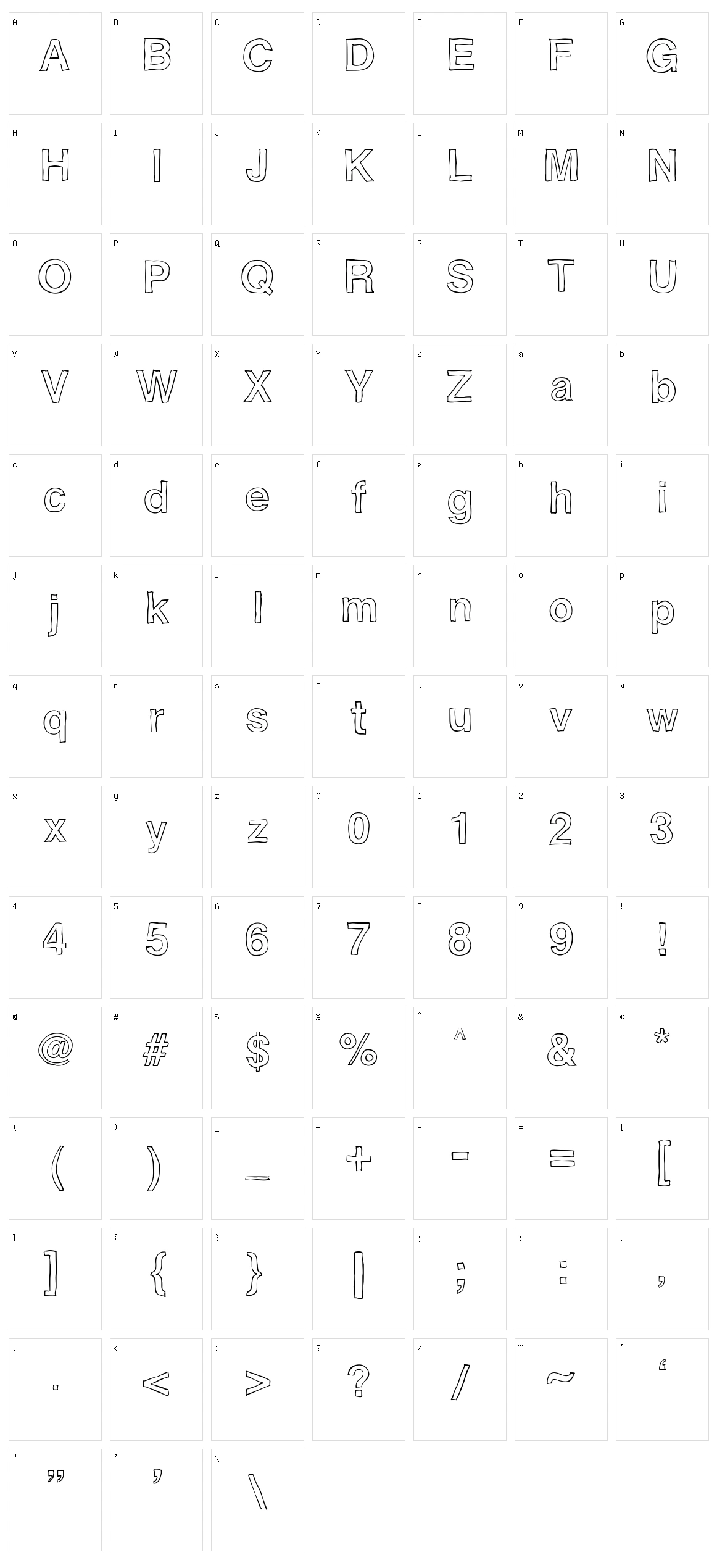
UK and Helvetidoodle is a font I made in a spare couple of evenings.
I'm pretty sure you can spot the inspiration - though it was freely hand
drawn on a graphics tablet.